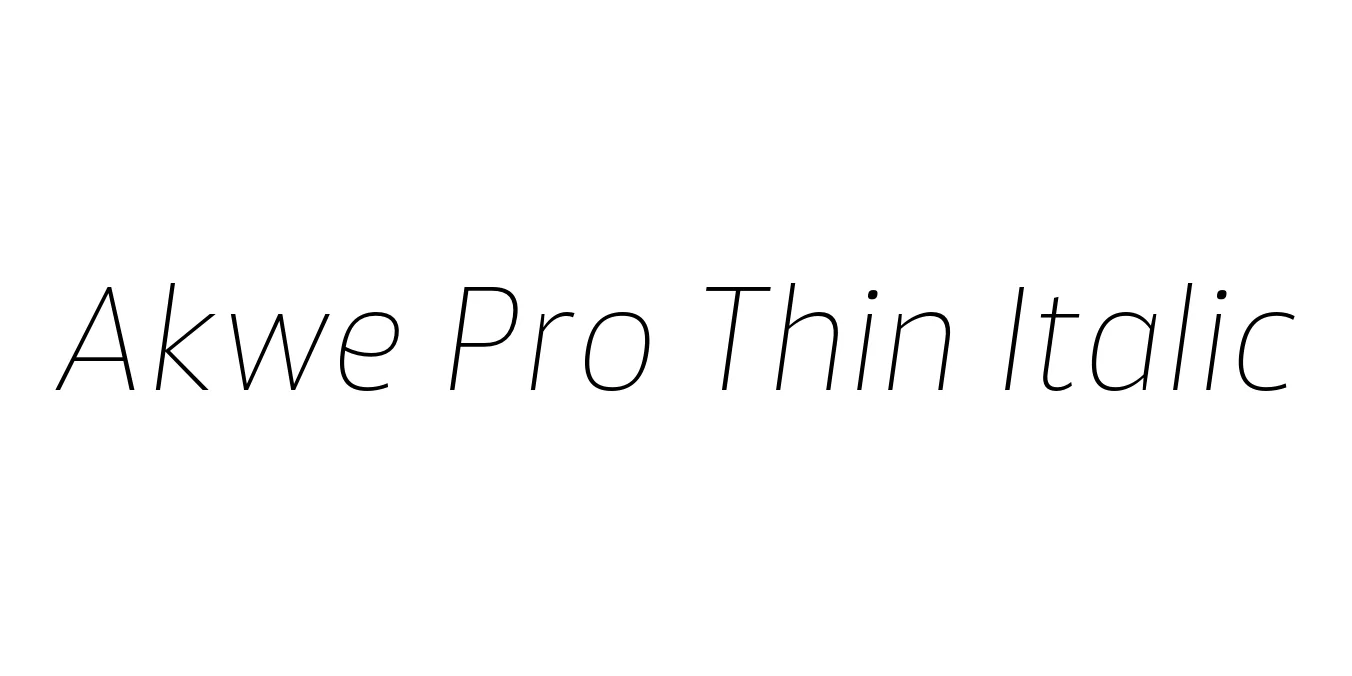
Akwe Pro Thin Italic
Designed by Mariusz Libel
Akwe Pro Thin Italic is a contemporary sans-serif typeface designed by Mariusz Libel and published by the well-known foundry, The Northern Block. This font is part of a larger, versatile family that is built on a solid geometric foundation, offering a clean and modern aesthetic that aligns with current design trends. The Thin Italic weight, in particular, showcases an extremely delicate stroke that provides an air of sophistication and lightness, making it a preferred choice for high-end visual communications.
The design of Akwe Pro Thin Italic focuses on legibility and a rhythmic flow, featuring open counters and a generous x-height. This allows the typeface to maintain its character even in challenging digital environments. It is meticulously crafted to bridge the gap between technical precision and artistic elegance, making it highly effective for editorial layouts, minimalist branding, and luxury packaging where a subtle yet distinct typographic voice is required.
Akwe Pro Thin Italic Best Uses
Perfect for sophisticated pull quotes and stylish headlines in fashion magazines.
Ideal for minimalist logo designs and high-end corporate identities.
Excellent for clean hero sections and atmospheric web headers.
Adds a refined touch to premium cosmetics and luxury goods packaging.